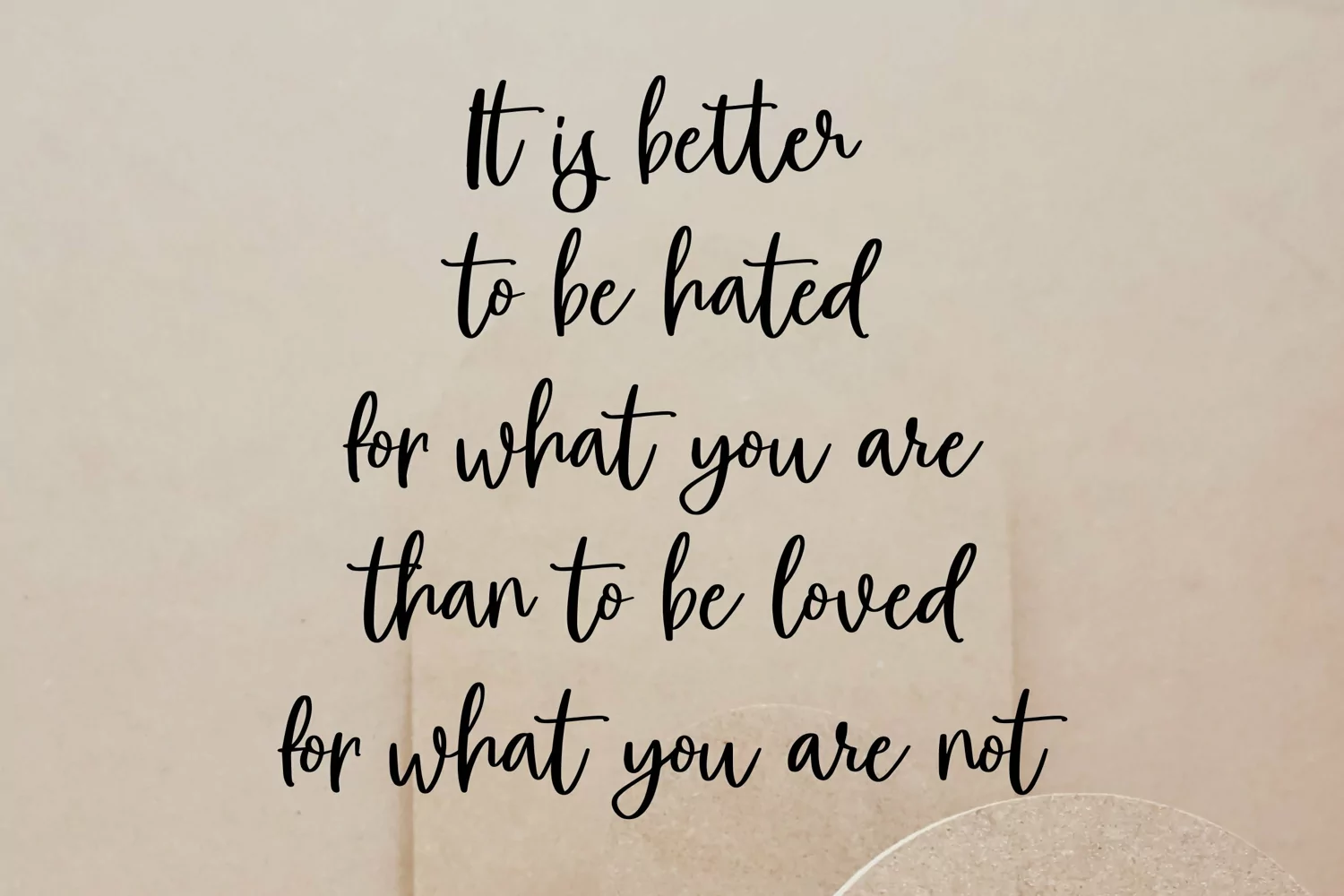
Web Font Macarons - Sweet Handlettering Font that contain lowercase, uppercase, symbol, and also support multi language. There’s a lot ligatures in this font. This Font also comes with ligatures, alternates and many more. this font suitable for fashion, branding, catalog and other design what you want.